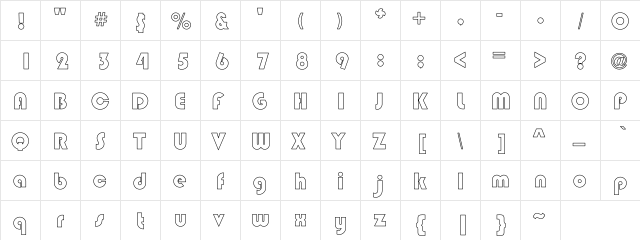
Square Brown Hollow Regular
Design Context for Square Brown Hollow Typeface
Square Brown Hollow is a composed and adaptable typeface that performs quietly and consistently across a wide range of design contexts.